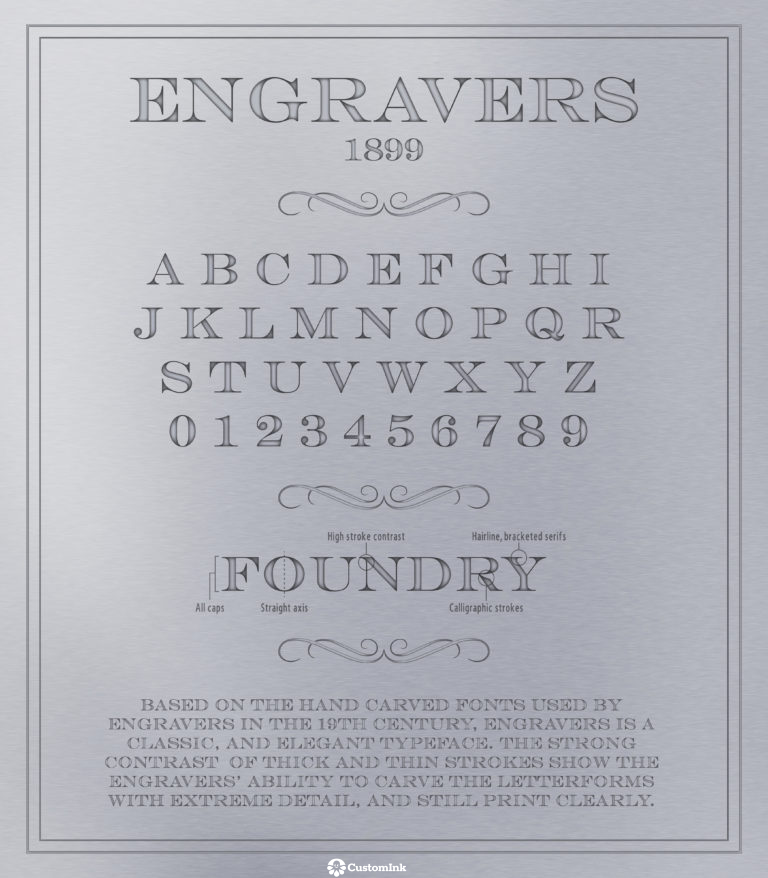
Font of the Week — Engravers
In 1902, Morris Fuller Benton and Robert Wiebking found themselves inspired by the hand carved fonts created by engravers of the past century. This style gave engravers a chance to show their extreme attention to detail while still creating a legible typeface. Thus, Engravers was born! This elegant font promotes the contrast between thick and thin strokes. Today, Engravers has found it’s home on invitations and in advertising work.